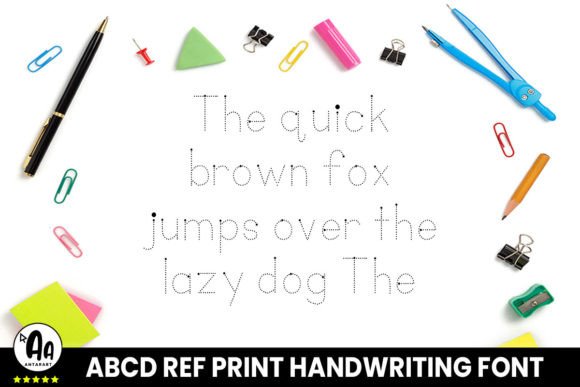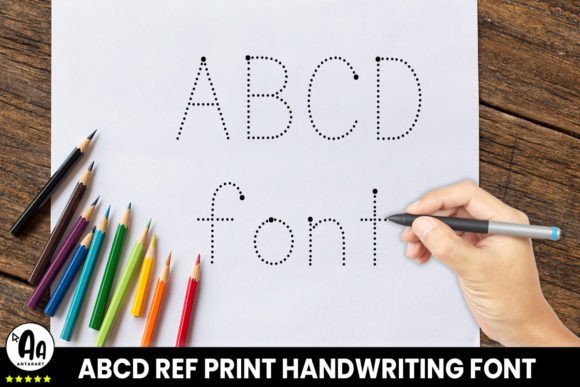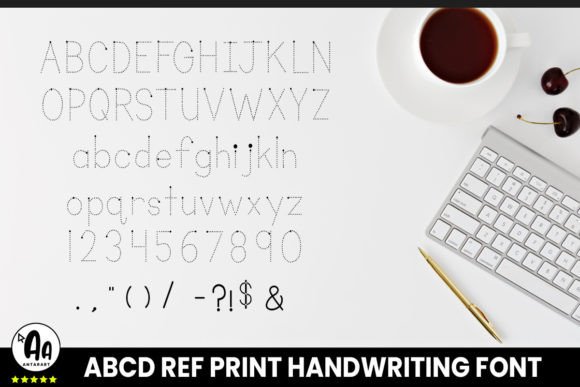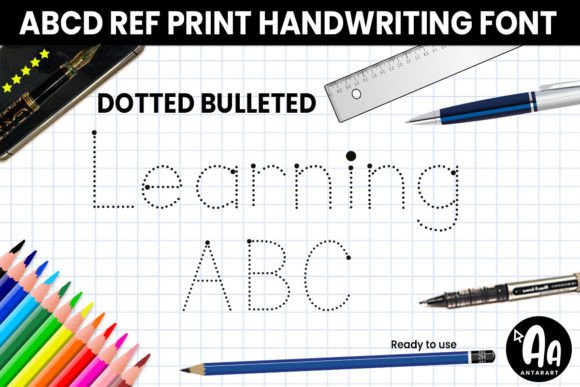
Unlocking Educational Excellence with Abcd Ref Dotted Bulleted Font
Are you a designer, educator, or crafter looking for an engaging and interactive way to teach or learn the print alphabet? Look no further than the Abcd Ref Dotted Bulleted Font, part of the ABCD Ref font family. This innovative font is based on the D’Nealian Method used in US schools, offering a unique and enjoyable approach to alphabet learning.
What is the Abcd Ref Dotted Bulleted Font?
The Abcd Ref Dotted Bulleted Font is a specially designed font that features dotted and bulleted letters, making it an ideal tool for creating educational materials. This font is perfect for worksheets, activity sheets, and other learning resources that require a fun and interactive approach to alphabet learning.
For designers and crafters, the Abcd Ref Dotted Bulleted Font offers a range of benefits, including:
• Easy creation of educational materials: With this font, you can create thousands of worksheets, activity sheets, and other learning resources in no time.
• Customization options: The font’s dotted and bulleted design makes it easy to customize and adapt to your specific needs.
• Interactive learning: The font’s interactive design makes learning fun and engaging for students, helping to keep them motivated and interested.
The D’Nealian Method: A Proven Approach to Alphabet Learning
The Abcd Ref Dotted Bulleted Font is based on the D’Nealian Method, a widely used approach to teaching the print alphabet in US schools. This method is designed to help students learn to write and read more efficiently, by emphasizing the correct formation of letters and words.
The D’Nealian Method has been proven to be an effective approach to alphabet learning, helping students to:
• Develop fine motor skills: By practicing letter formation, students can improve their fine motor skills and hand-eye coordination.
• Build confidence in writing and reading: The D’Nealian Method helps students to build confidence in their writing and reading abilities, setting them up for success in their academic journey.
How to Use the Abcd Ref Dotted Bulleted Font
• Create worksheets: Use the font to create worksheets for students to practice their alphabet skills.
• Design activity sheets: Create activity sheets that incorporate the font, such as word searches, crossword puzzles, and more.
• Make educational posters: Use the font to create eye-catching posters that teach alphabet concepts.
The Abcd Ref Dotted Bulleted Font is a valuable resource for designers, educators, and crafters looking to create engaging and interactive educational materials. With its unique dotted and bulleted design, this font is perfect for teaching or learning the print alphabet in a fun and enjoyable way. Whether you’re creating worksheets, activity sheets, or educational posters, this font is sure to become a go-to tool in your design arsenal.